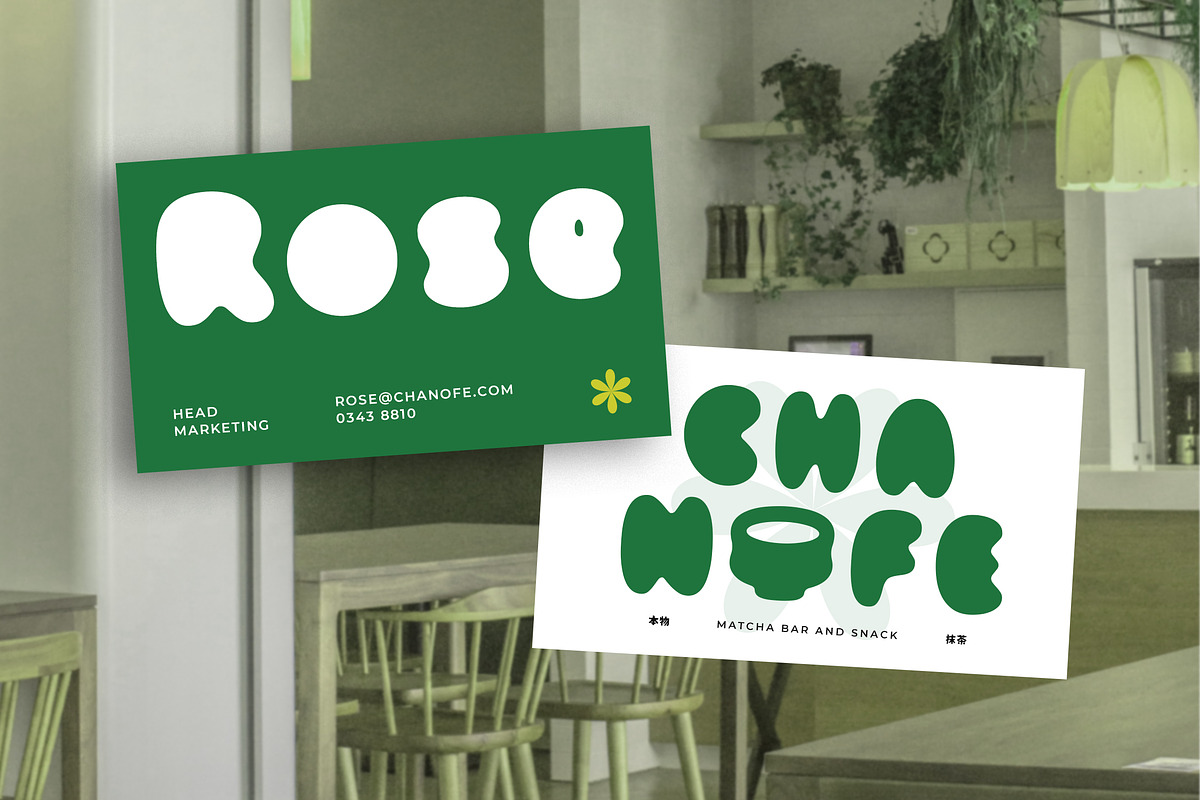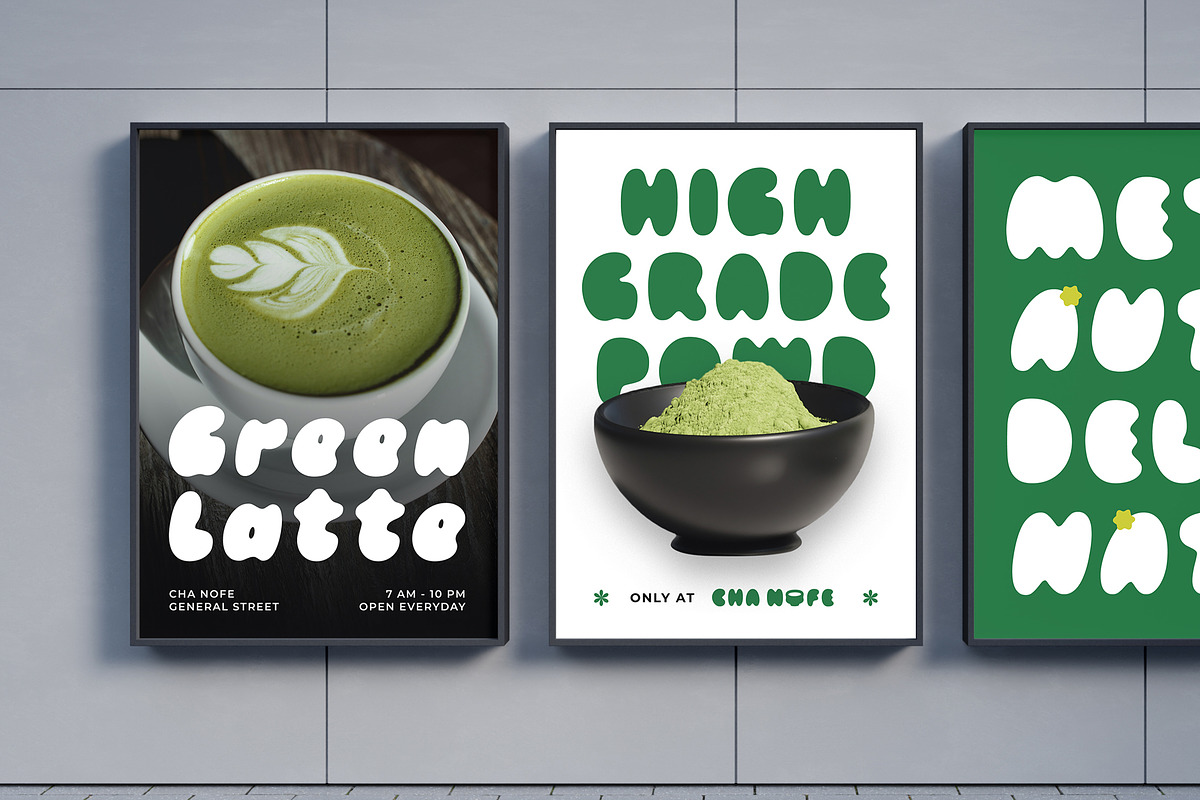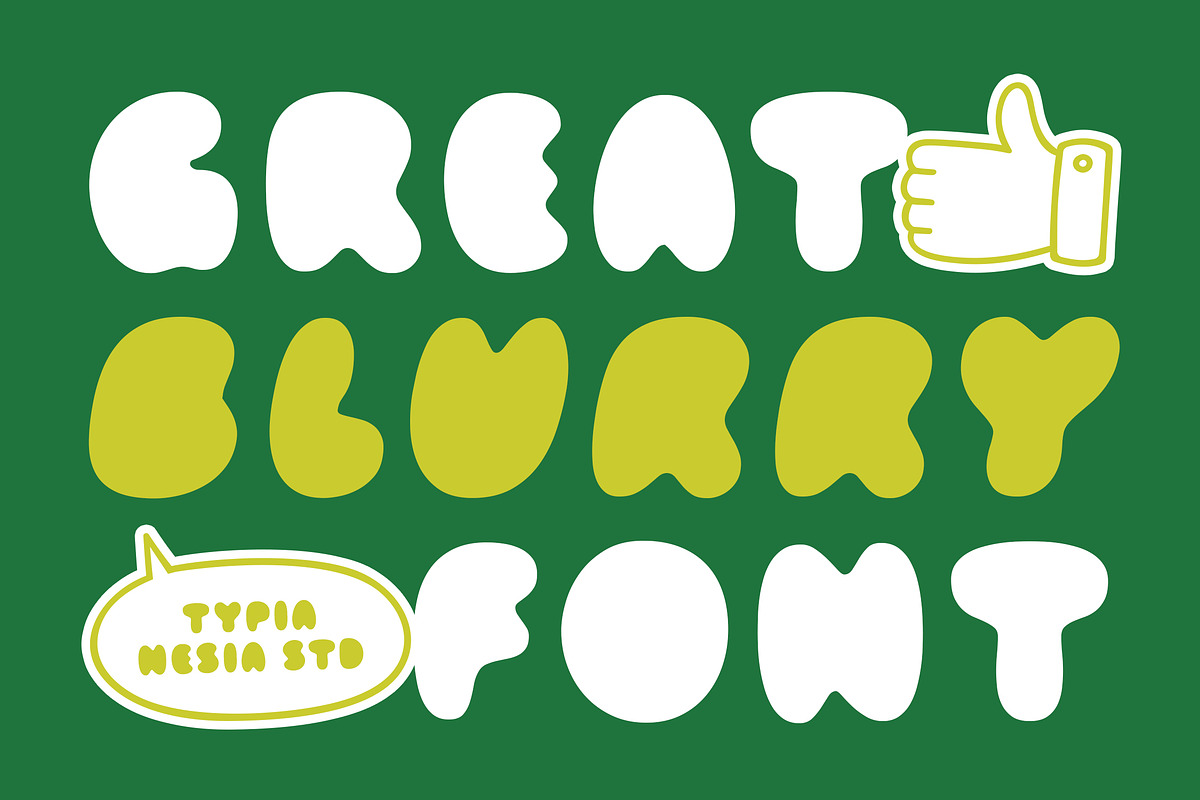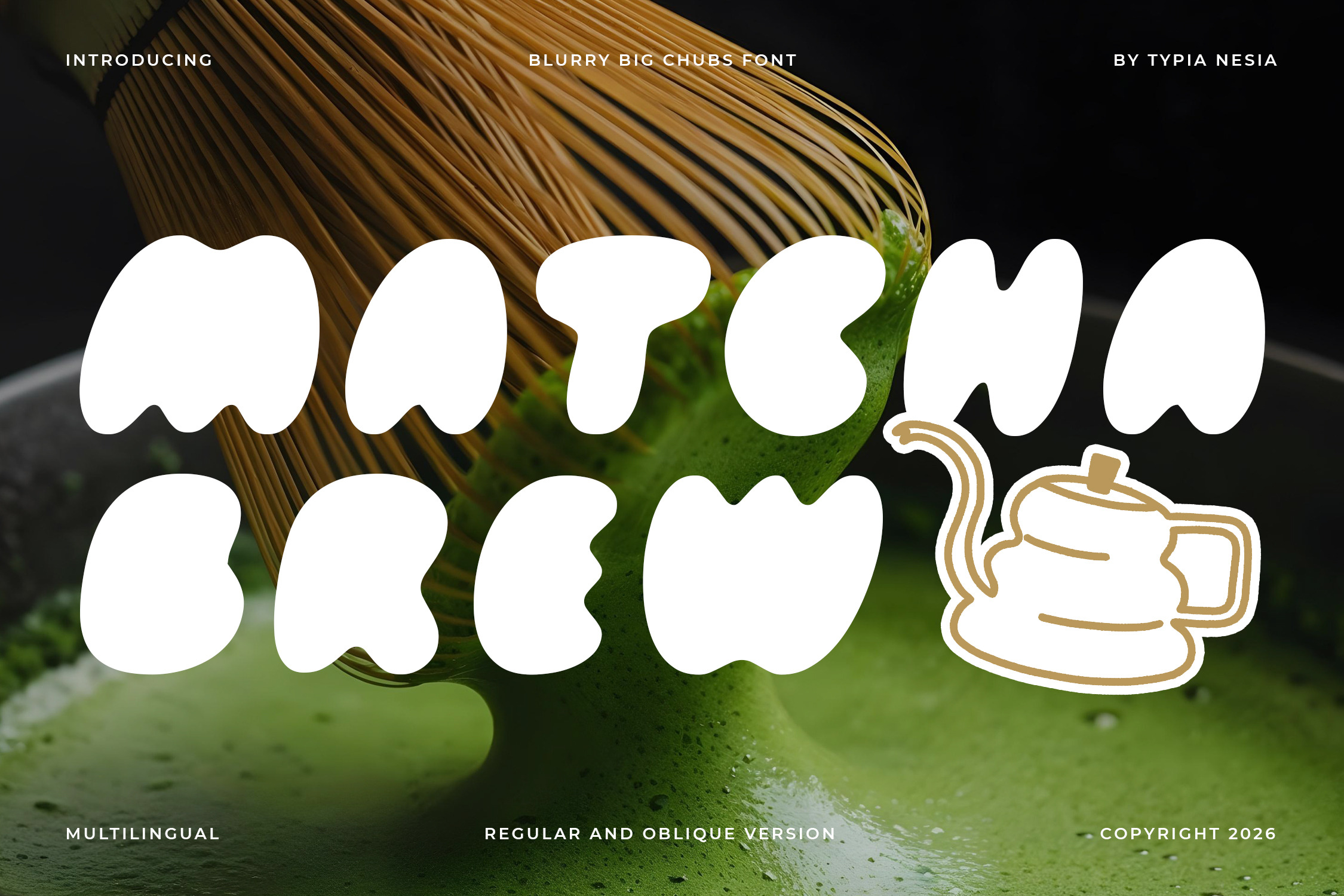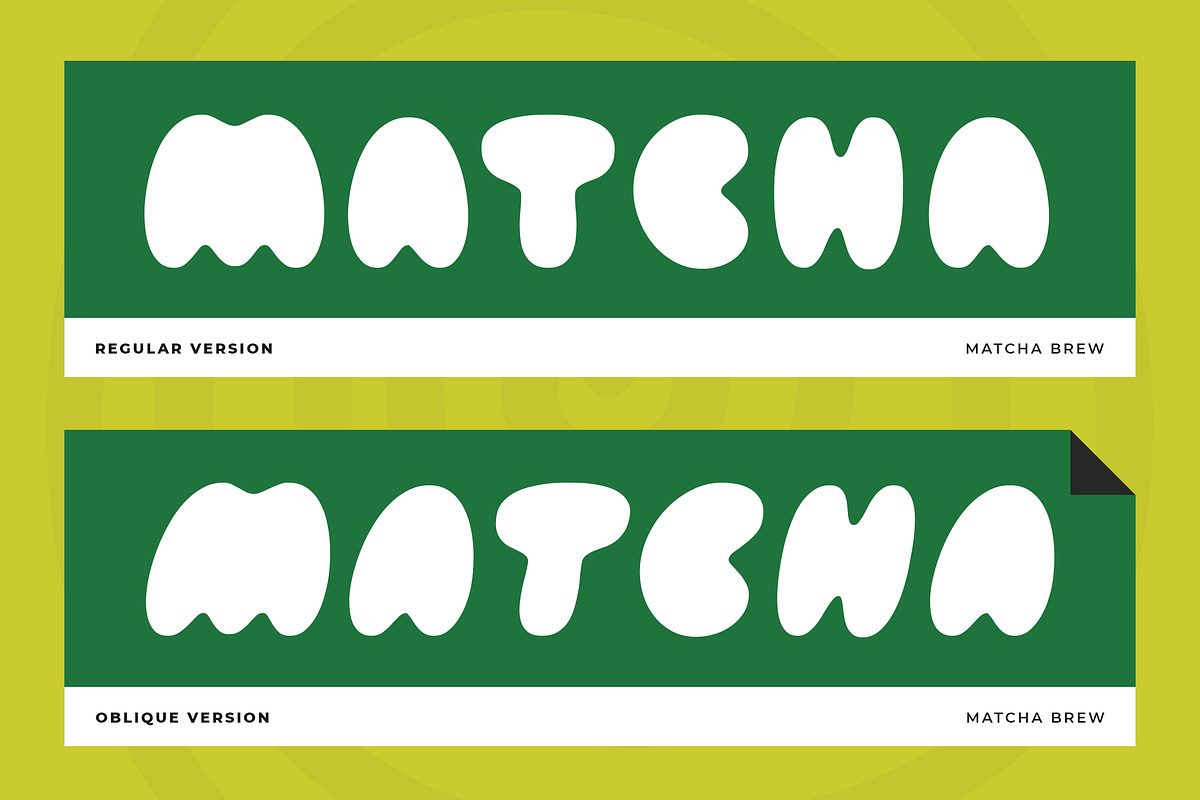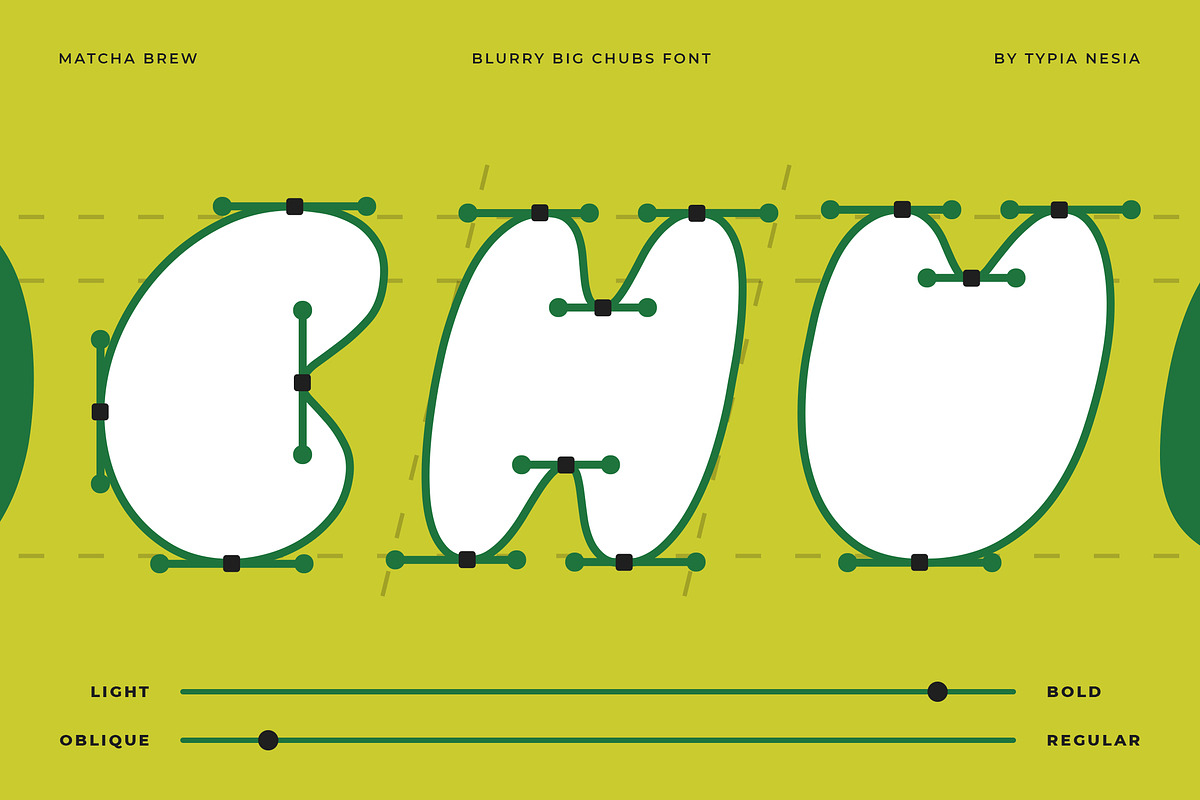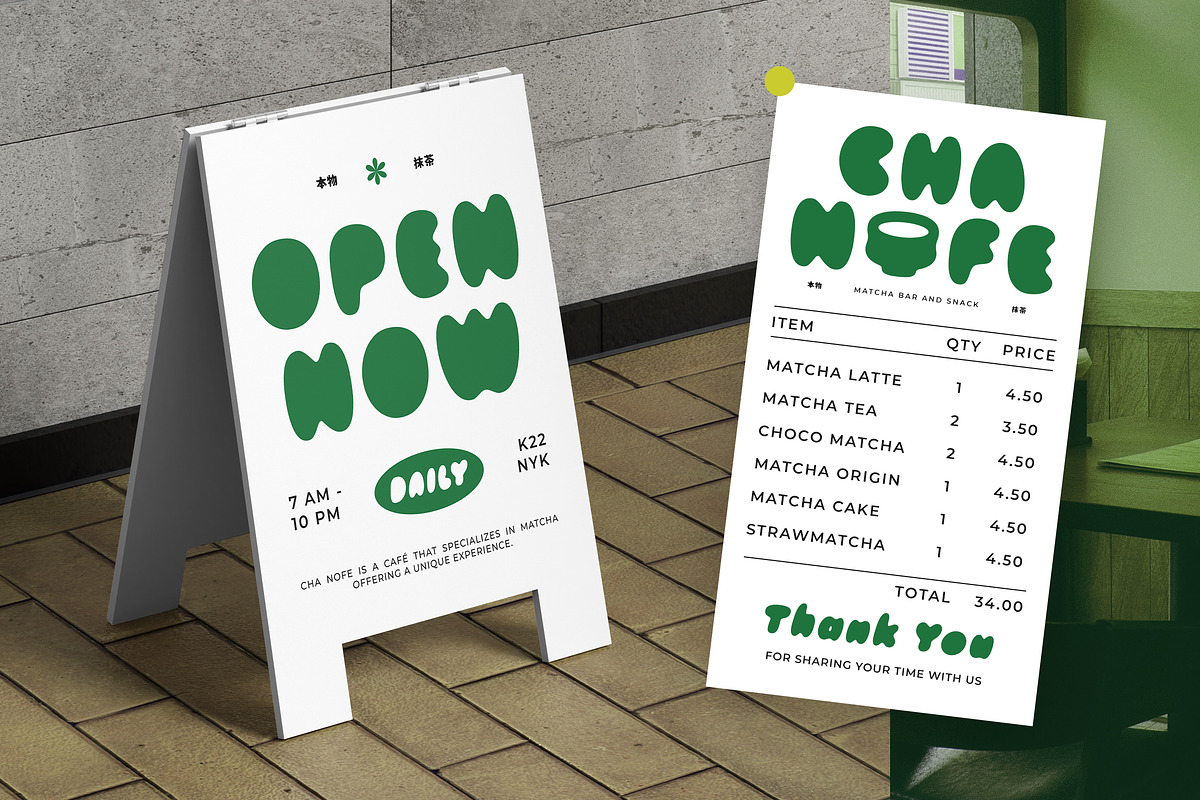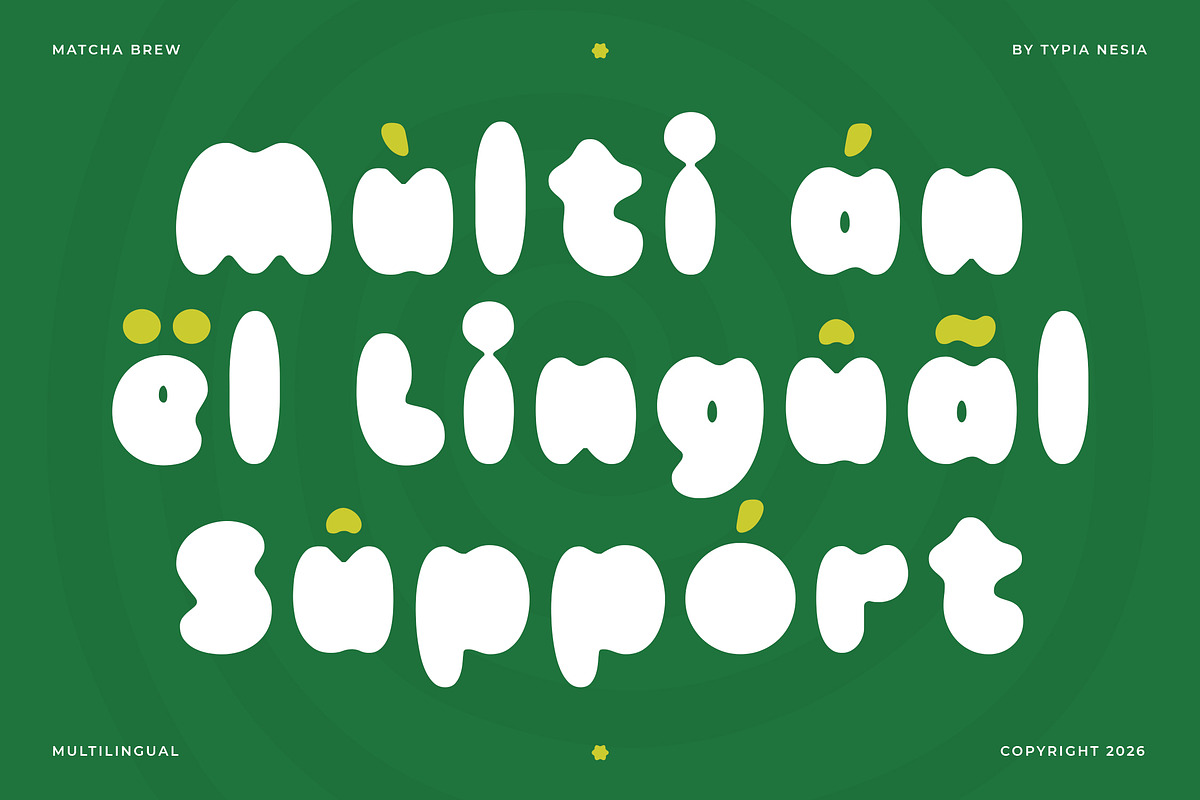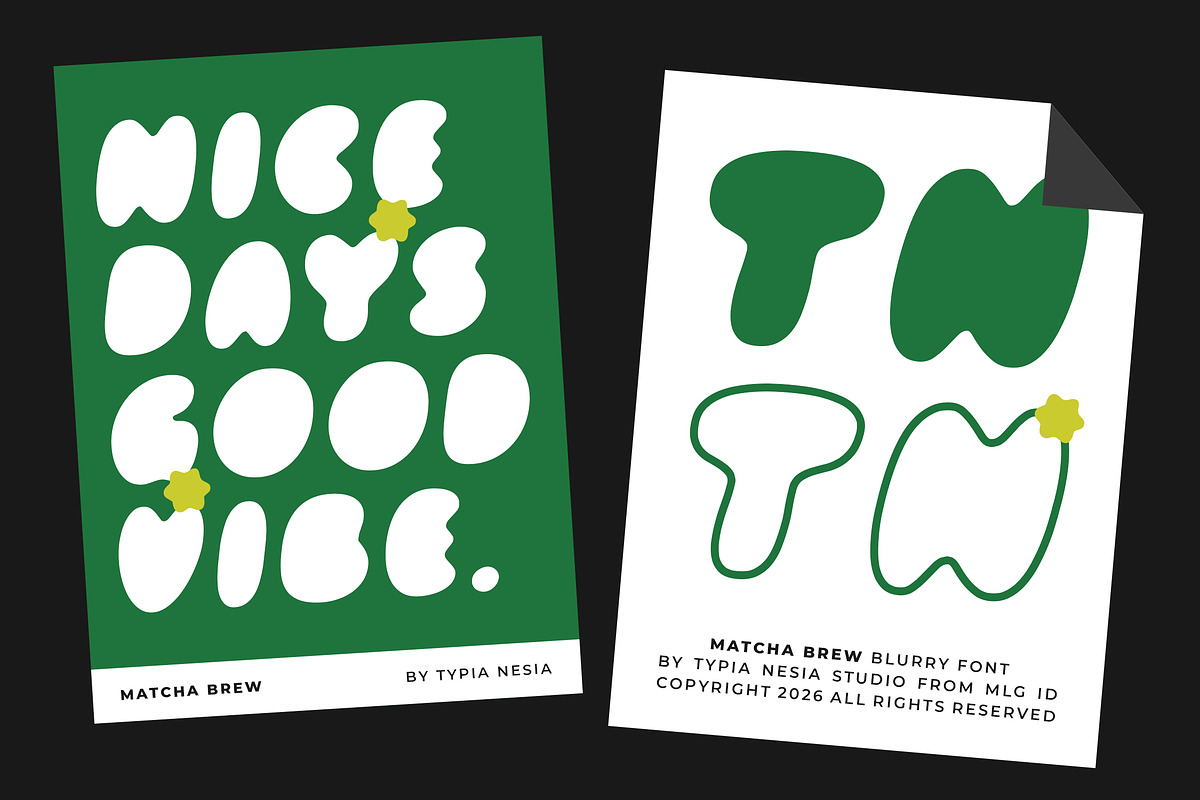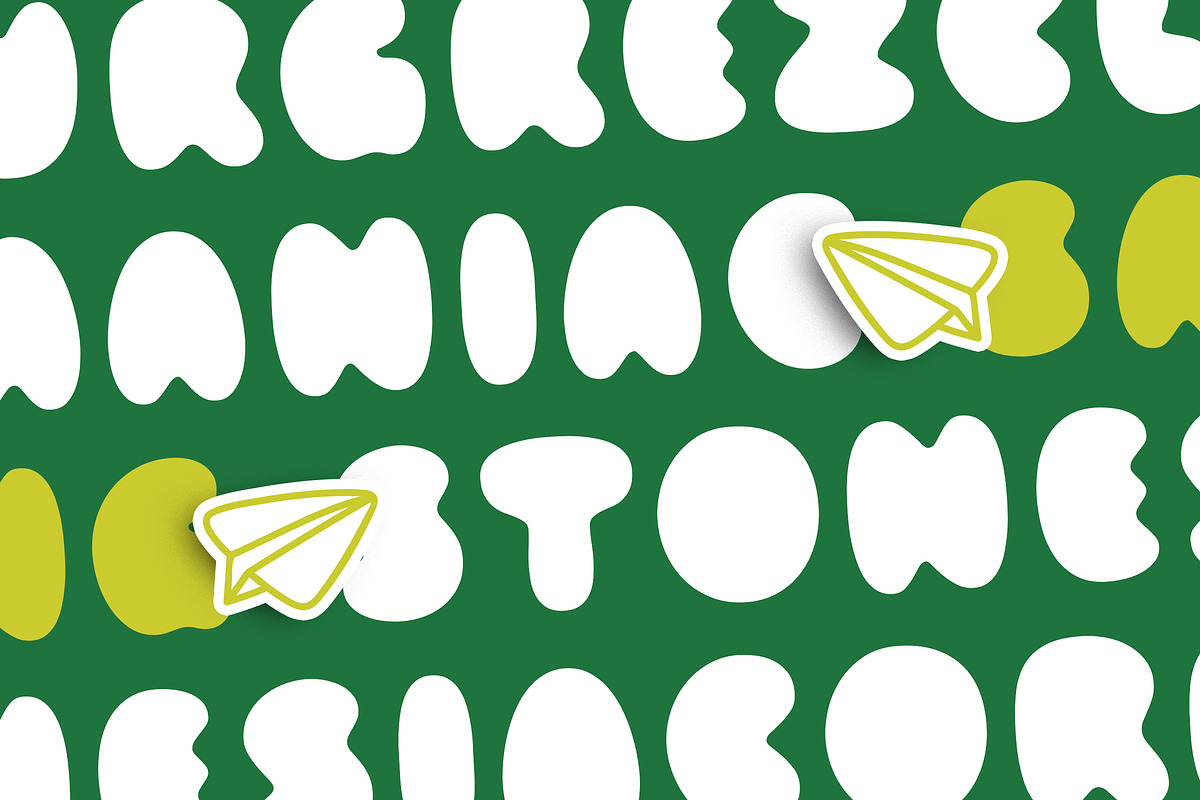
Matcha Brew - Blurry Bubble Font
Matcha Brew - Cute Chubby Bubble Display Font for Food Branding, Kids & Packaging
Matcha Brew is a cute chubby display typeface featuring oversized rounded letterforms, soft organic curves, and a playful handcrafted personality. Inspired by the cozy atmosphere of cafés and sweet treats, it delivers a warm, cheerful visual style that instantly attracts attention across food branding, packaging, and lifestyle design.
Perfect for café logos, bakery branding, beverage packaging, dessert shops, snack labels, children's products, stationery, stickers, social media graphics, menu designs, and playful merchandise. Bring warmth, sweetness, and irresistible charm to every design with Matcha Brew.